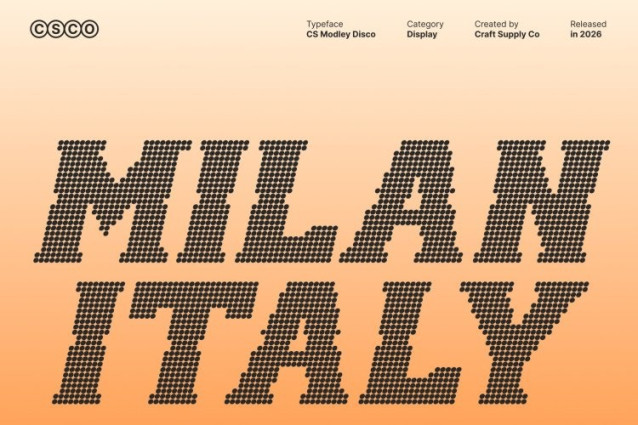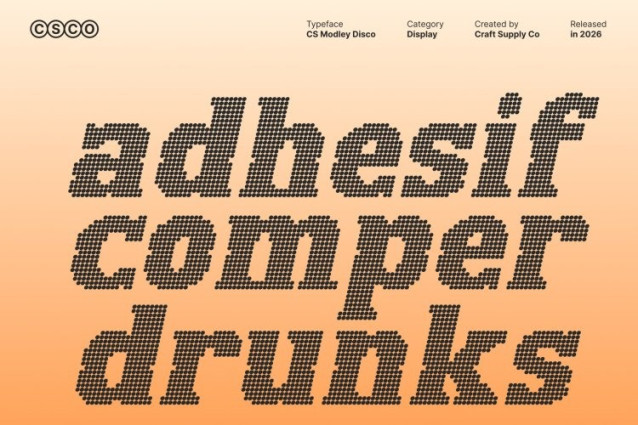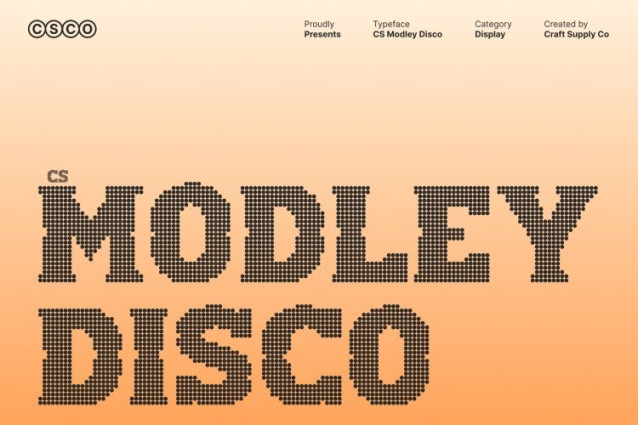
CS Modley Disco Font
CS Modley Disco Font – This blends the rugged strength of Wild West typography with the vibrant energy of disco lights. Inspired by vintage frontier signage, its bold slab-like forms now shine with lively dotted accents, creating the feel of a glowing saloon sign on a festive night. The result is a typeface that combines classic western grit with a cheerful, party-ready sparkle.
Wide Letterforms with Radiant Texture
The signature wide proportions and slab-like serifs remain strong and commanding, ensuring excellent readability and impact. The disco-inspired dotted construction adds a shimmering rhythm to the sturdy structure, transforming the rugged forms into illuminated shapes that feel energetic and eye-catching.
Vintage Grit Meets Festive Glamour
This font maintains the authentic, handcrafted character of western typography while introducing a playful glow. The mix of solid, frontier-inspired shapes and vibrant dot patterns creates a unique visual balance bold yet joyful, rustic yet celebratory.
Perfect for Retro and Party-Themed Designs
Ideal for posters, branding, apparel graphics, event promotions, and vintage-inspired packaging, this font stands out in headlines and statement typography. It’s perfect for projects that want to mix western nostalgia with lively disco charm.